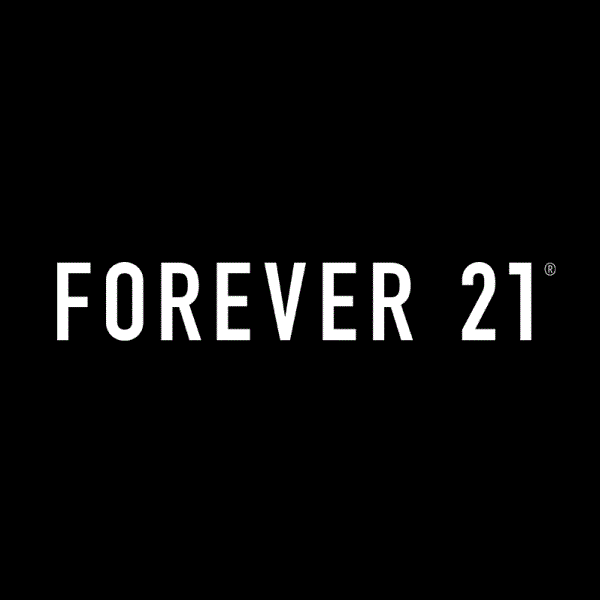
Forever 21 Font
ApparelForever 21 is a fast fashion brand founded in 1984 by Do Won Chang and Jin Sook Chang. It is based in Los Angeles, California, and is known for its trendy and affordable clothing and accessories, targeting a young, fashion-conscious demographic.
The Forever 21 logo was inspired by Din 1451 Eng Neu with a slight modification on "1". You can view more details about the font here.